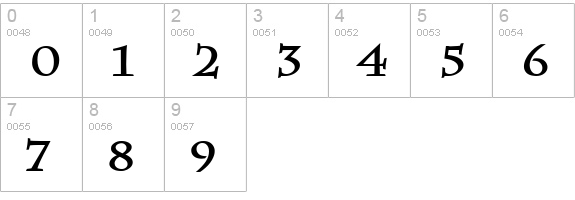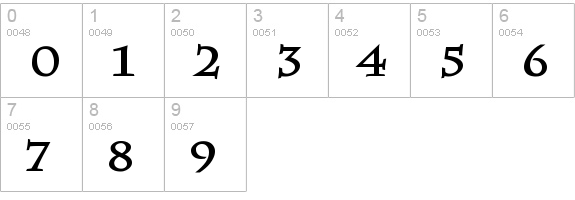
Chaz Wide Bold Font Details
Chaz Wide Bold is a strong, high-contrast, extended-width variant in the Chaz typeface family \xE2\x80\x94 well suited to headlines, attention-grabbing titles, and strong calls-to-action.
Introducing Chaz Wide Bold font, a modern and versatile typeface that exudes confidence and sophistication. With its bold and wide design, this font makes a bold statement in any project, commanding attention and leaving a lasting impression. Perfect for headlines, posters, logos, and branding, Chaz Wide Bold font adds a touch of elegance and professionalism to your designs. The best part? Chaz Wide Bold font is available for free download at FontsMarket.com, allowing you to add this stylish font to your collection without any cost. Don't miss out on the opportunity to enhance your projects with the bold and sleek look of Chaz Wide Bold font. Download it today and elevate your designs to the next level.